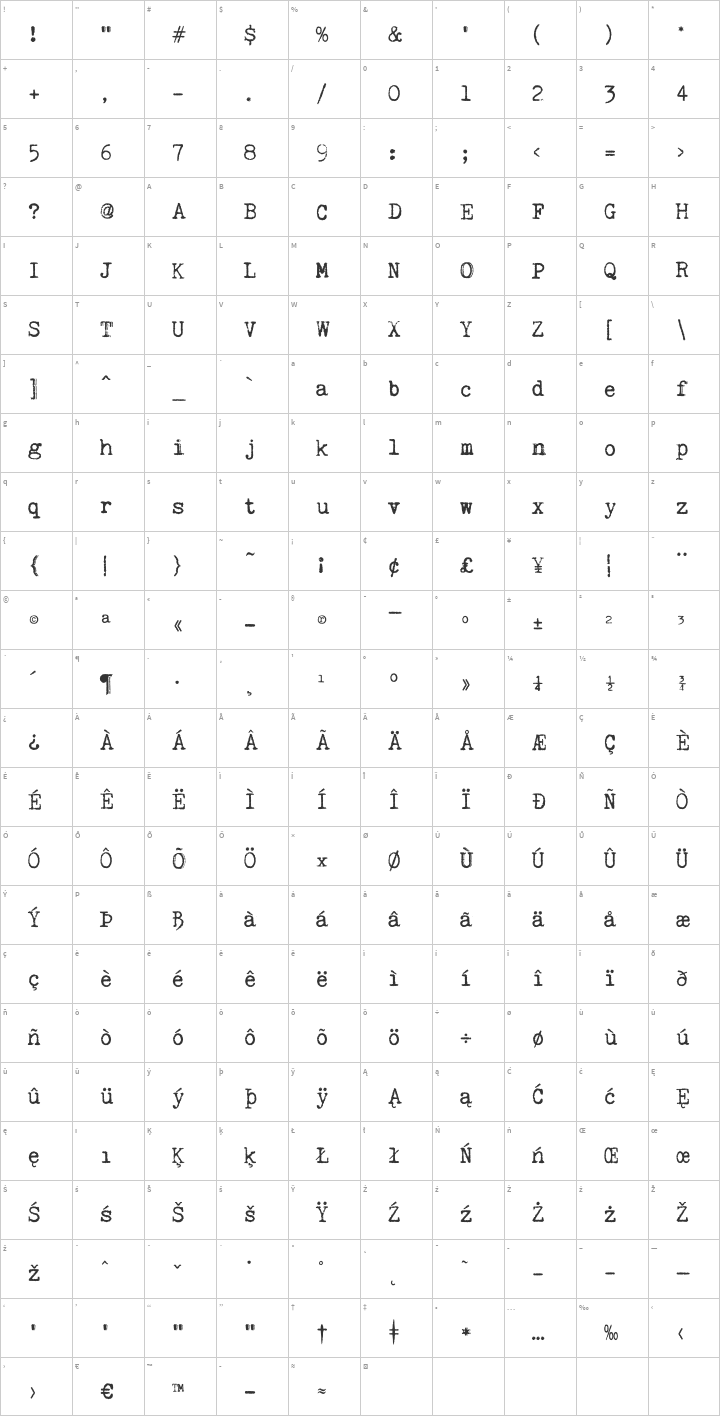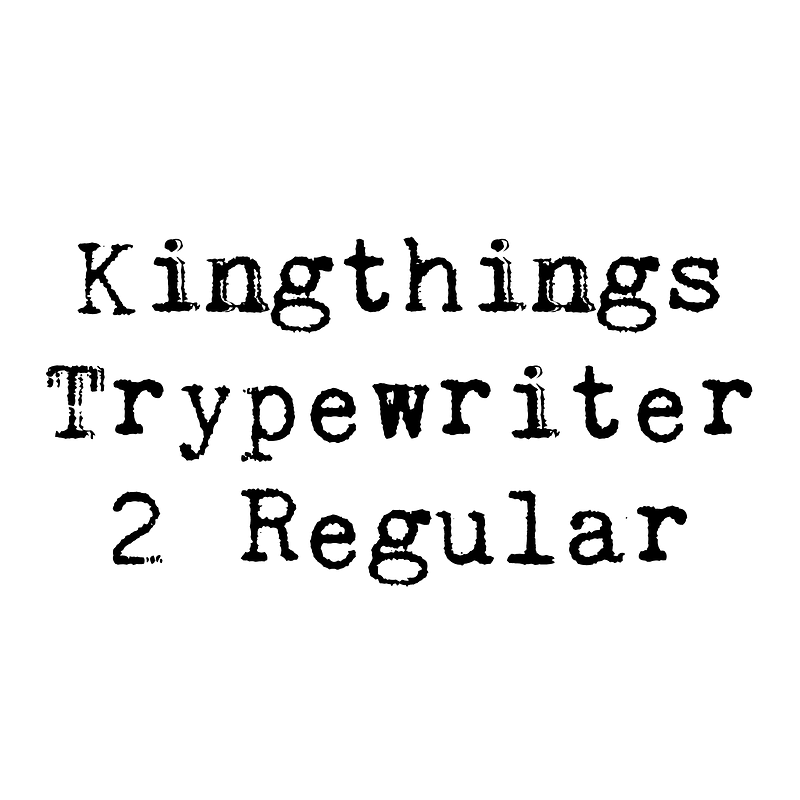
Kingthings Typewriter Font . kingthings trypewriter à € by kingthings. The kingthings trypewriter font has been downloaded. Moreover, you can embed it to your website with @font. kingthings trypewriter font is a fancy, typewriter font designed by kingthings. download and install the kingthings trypewriter font by king things fonts. Released in 1999 by kingthings and licensed for. Kingthings trypewriter font is free for both personel and. 564,139 downloads (29 yesterday) 2 comments 100%. free download of kingthings trypewriter font family with 2 styles. download kingthings trypewriter 2 font · free for commercial use · kingthings trypewriter 2 is a deconstructed typewriter.
Released in 1999 by kingthings and licensed for. kingthings trypewriter à € by kingthings. Moreover, you can embed it to your website with @font. download and install the kingthings trypewriter font by king things fonts. kingthings trypewriter font is a fancy, typewriter font designed by kingthings. download kingthings trypewriter 2 font · free for commercial use · kingthings trypewriter 2 is a deconstructed typewriter. 564,139 downloads (29 yesterday) 2 comments 100%. free download of kingthings trypewriter font family with 2 styles. Kingthings trypewriter font is free for both personel and. The kingthings trypewriter font has been downloaded.
Kingthings Typewriter Font 564,139 downloads (29 yesterday) 2 comments 100%. Kingthings trypewriter font is free for both personel and. kingthings trypewriter font is a fancy, typewriter font designed by kingthings. download and install the kingthings trypewriter font by king things fonts. Moreover, you can embed it to your website with @font. free download of kingthings trypewriter font family with 2 styles. kingthings trypewriter à € by kingthings. The kingthings trypewriter font has been downloaded. Released in 1999 by kingthings and licensed for. download kingthings trypewriter 2 font · free for commercial use · kingthings trypewriter 2 is a deconstructed typewriter. 564,139 downloads (29 yesterday) 2 comments 100%.